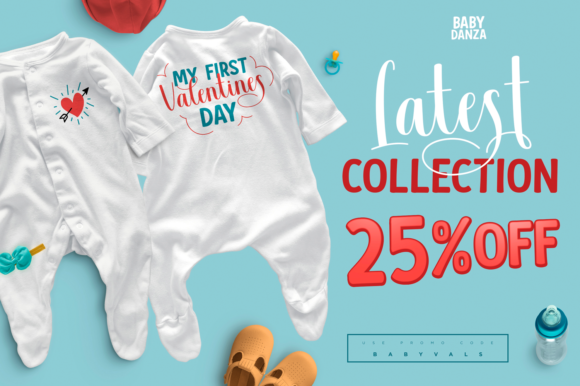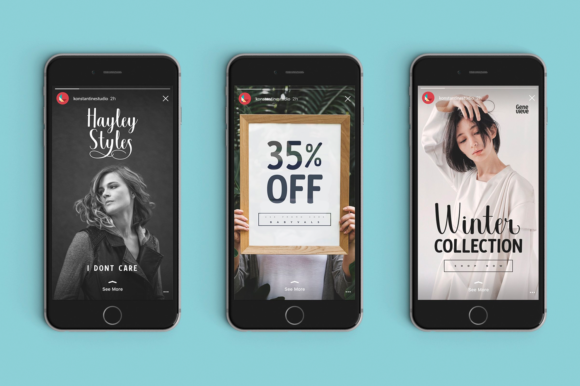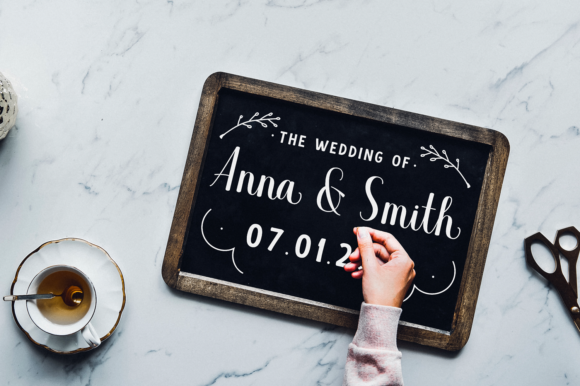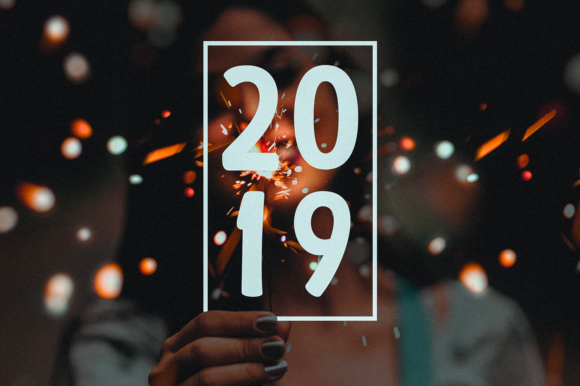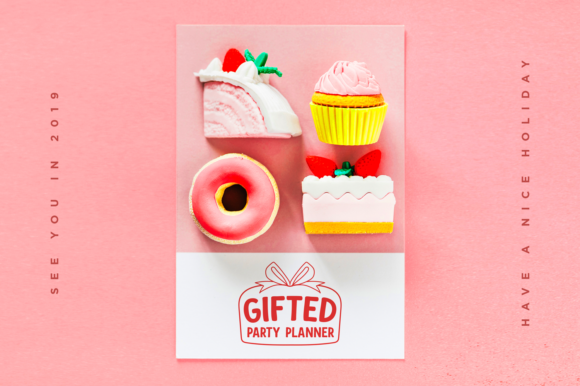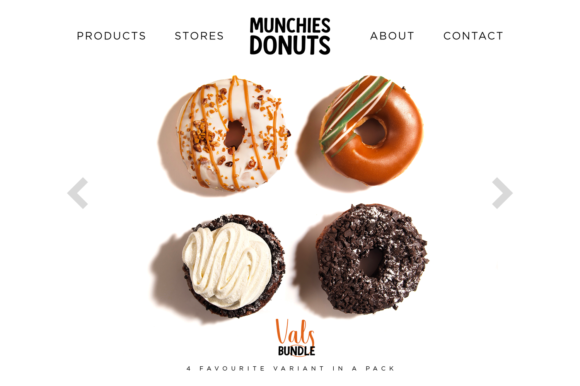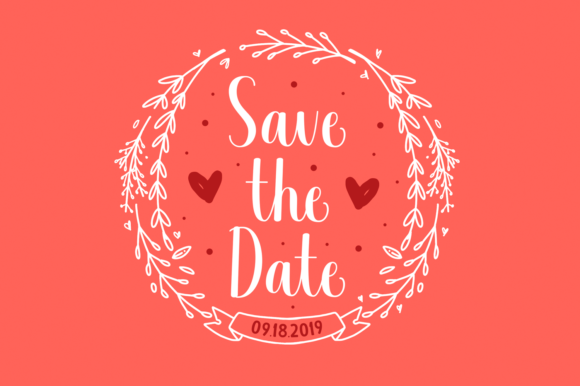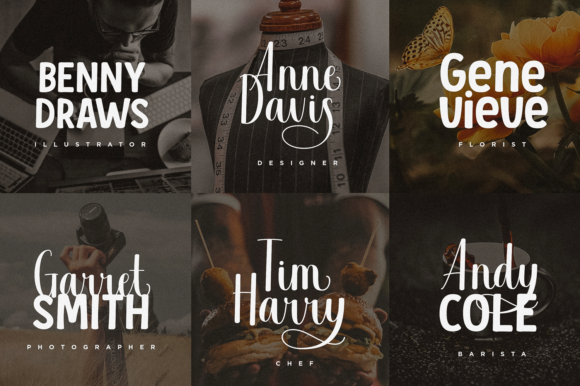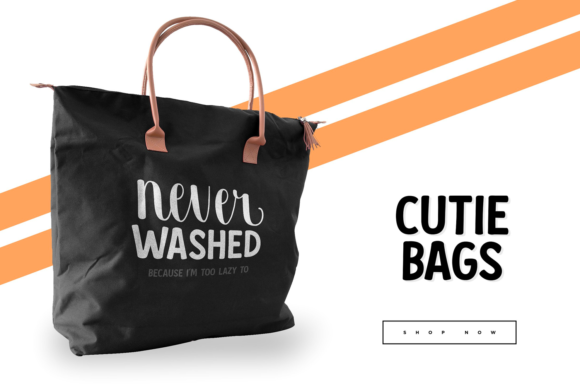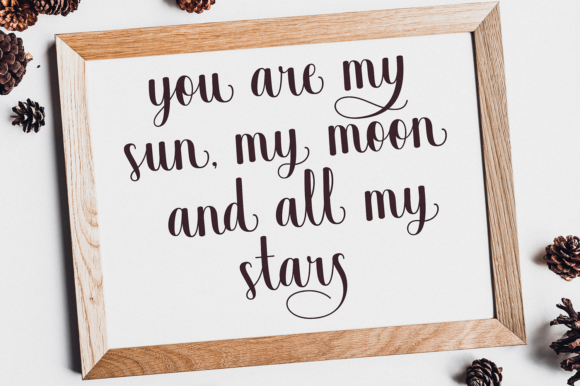
Valsday Font
About Valsday Font
Valsday is a stunning and comprehensive duo font (script and sans serif), ideal for giving your projects a branded but friendly feel. The two included styles can be combined together perfectly but are also beautiful on their own.